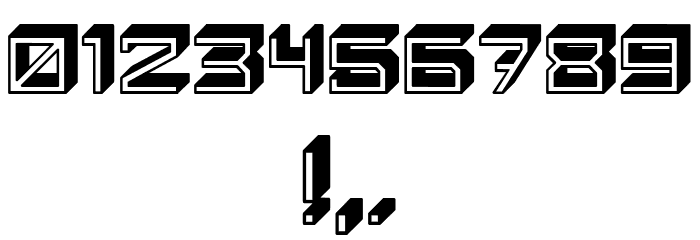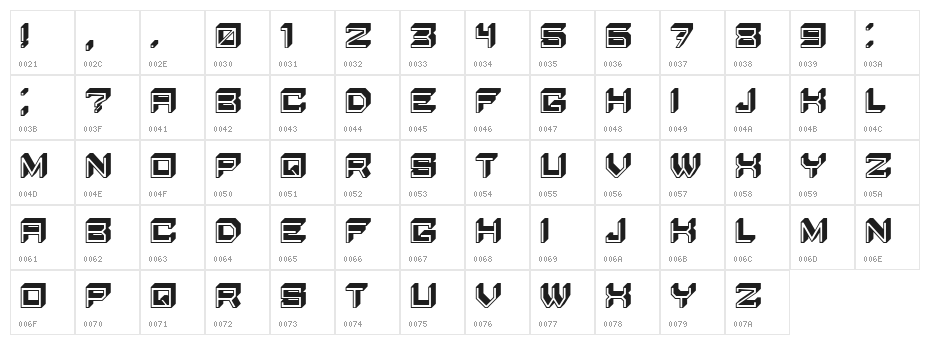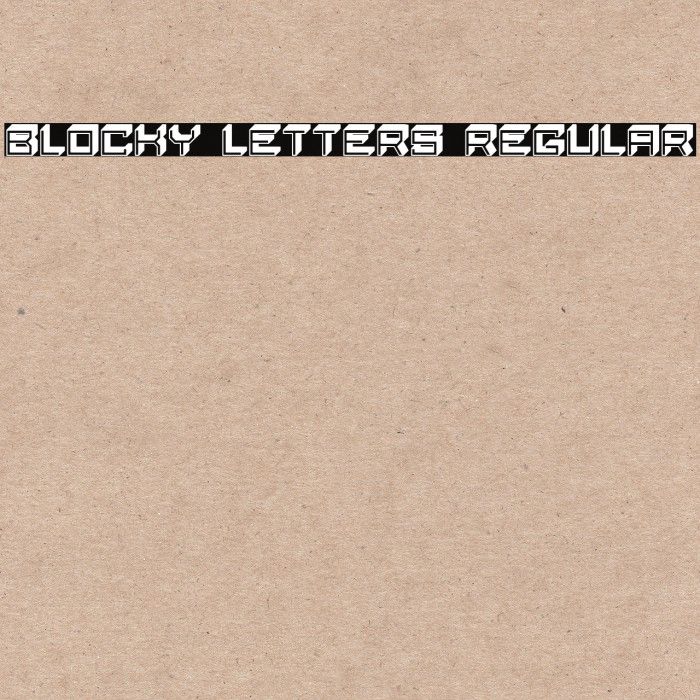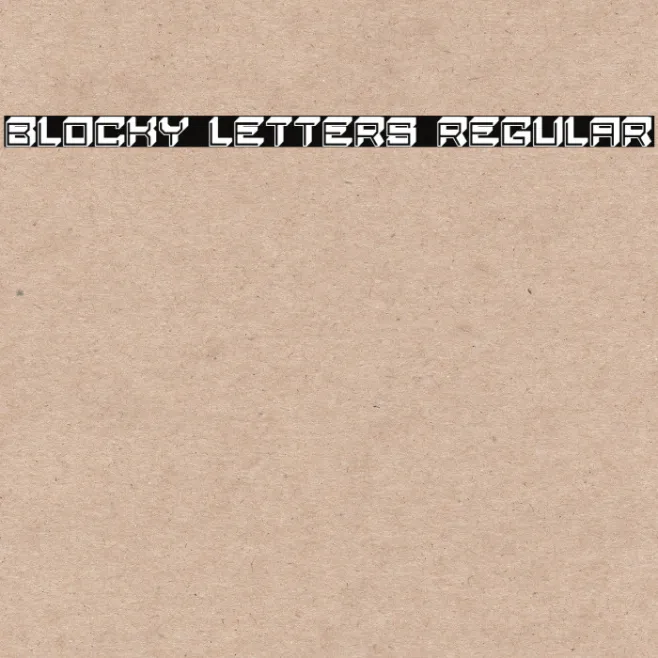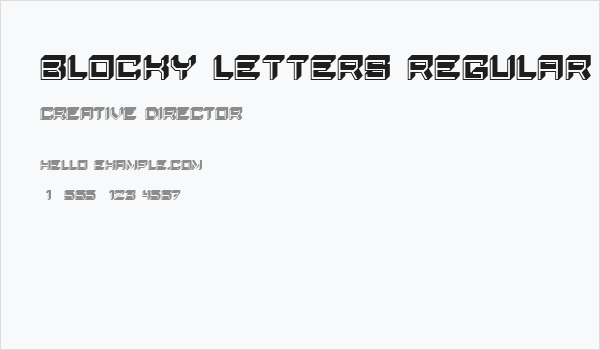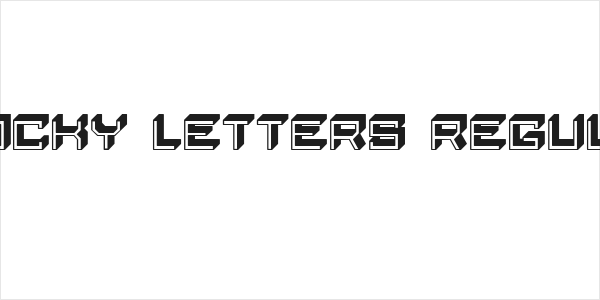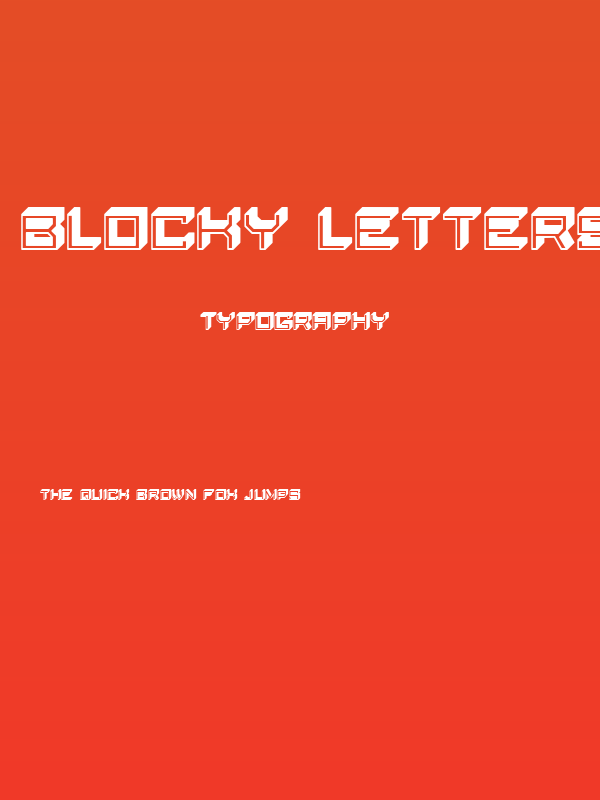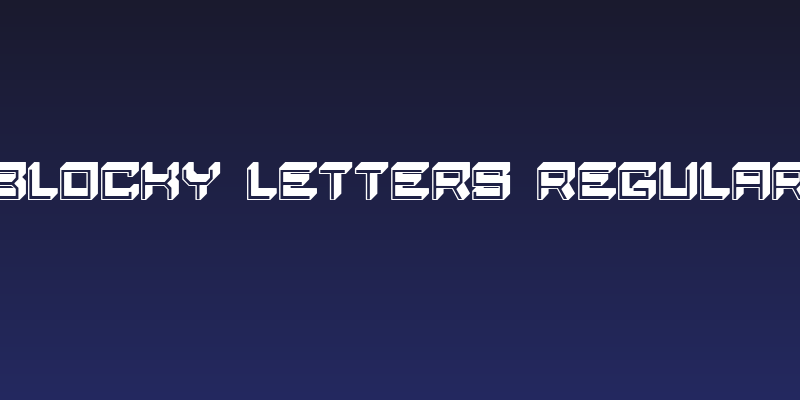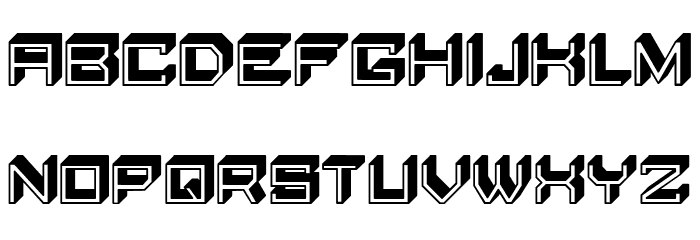
Blocky Letters Regular Font
Blocky Letters Regular Description
This font features a bold, geometric design with a three-dimensional effect, giving each character a blocky and futuristic appearance. The letters are uppercase and have a strong, angular structure, with sharp edges and a distinct shadow effect that adds depth. The numbers and special characters follow the same style, maintaining consistency across the set. The font's design is striking and attention-grabbing, making it suitable for projects that require a modern and dynamic look.
| Proposed Projects | Ideal for video game titles, tech-themed posters, futuristic branding, and digital media projects. |